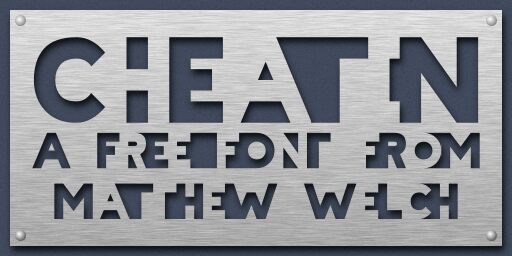
Cheatin Regular
Cheatin font by Matthew Welch is a free decorative display typeface that revels in bold tricks of the eye. Big, blocky letterforms snap together like cut paper, with sharp angles and sliced counters creating a dramatic black-and-white puzzle across the line. It feels punchy and graphic, as if each word has been stenciled and spliced straight onto a poster wall.
Using Cheatin instantly gives headlines a loud, underground energy that grabs from across the room. This free font shines on gig posters, club flyers, album art, streetwear branding, event titles, and experimental book covers. Keep it large so the overlapping shapes and hidden gaps stay crisp, and pair it with a clean, neutral sans-serif for body copy to let Cheatin handle the attitude.